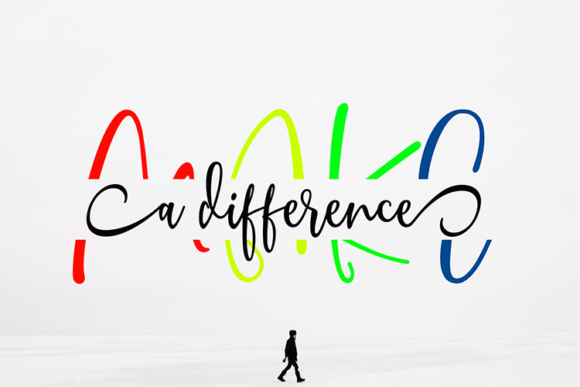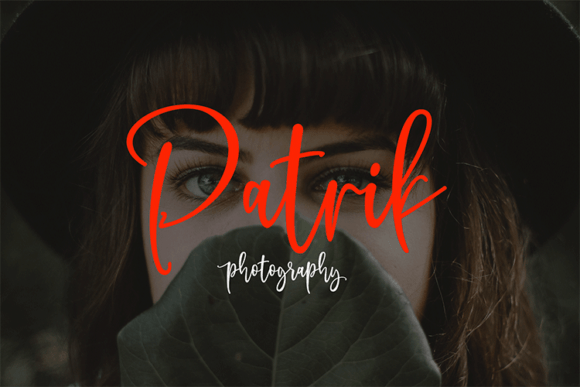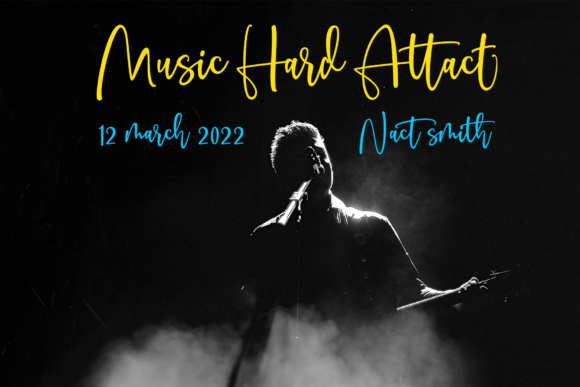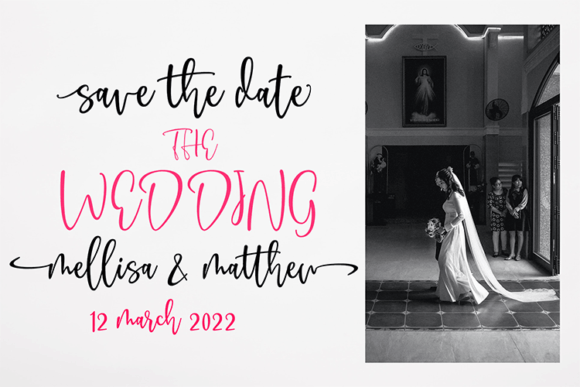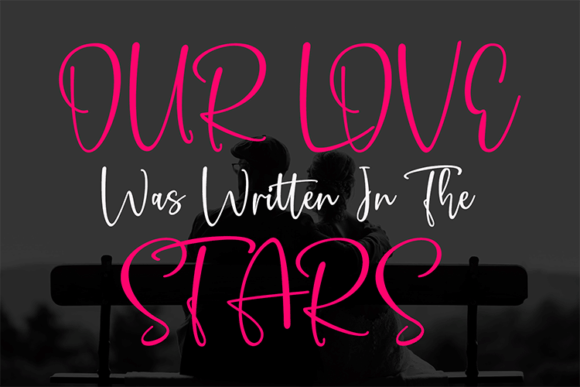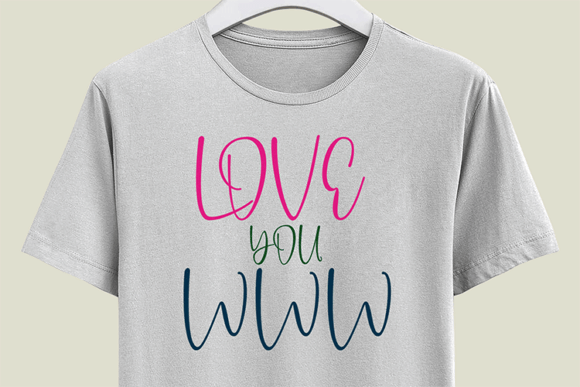
Introducing Camelina Font: Elevate Your Designs with Elegance and Sophistication
In the world of typography, a well-crafted font can make all the difference in elevating your design to the next level. If you’re a designer, crafter, or DIY enthusiast looking for a modern calligraphy font that exudes elegance and sophistication, look no further than Camelina Font. This stunning font is designed to add a touch of luxury to your projects, making it perfect for a wide range of applications.
What is Camelina Font?
Camelina Font is a modern calligraphy font that boasts characters that dance along the baseline, creating a sense of movement and fluidity. Its elegant touch makes it an ideal choice for designs that require a high level of sophistication. Whether you’re creating logos, wedding invitations, letterhead, signage, or promotional materials, Camelina Font is the perfect addition to your typography arsenal.
Key Features of Camelina Font
- Modern Calligraphy Style: Camelina Font features a modern calligraphy style that is both elegant and refined.
- Versatile: Camelina Font can be used for a wide range of applications, including logos, wedding invitations, letterhead, signage, news, t-shirts, heading labels, posters, badges, and more.
- Elegant Touch: The font’s elegant touch adds a level of sophistication to your designs, making them stand out from the crowd.
Use Cases for Camelina Font
Camelina Font is an incredibly versatile font that can be used for various purposes. Here are some use cases to get you started:
- Logos: Create a stunning logo for your business or brand with Camelina Font.
- Wedding Invitations: Add a touch of elegance to your wedding invitations with this beautiful font.
- Letterhead: Elevate your business correspondence with Camelina Font.
- Signage: Create eye-catching signage for your business or event with this modern calligraphy font.
- T-Shirts and Apparel: Design stylish t-shirts and apparel with Camelina Font.
- Posters and Flyers: Create stunning posters and flyers that grab attention with this elegant font.
Why Choose Camelina Font?
With so many fonts available, why choose Camelina Font? Here are a few reasons why designers and crafters love this font:
- Unique Style: Camelina Font offers a unique and distinctive style that sets it apart from other fonts.
- High-Quality: Camelina Font is a high-quality font that is designed to deliver exceptional results.
- Versatility: This font can be used for a wide range of applications, making it a valuable addition to your font library.
In conclusion, Camelina Font is a stunning modern calligraphy font that is perfect for designers, crafters, and DIY enthusiasts looking to add a touch of elegance and sophistication to their designs. With its unique style, ease of use, high-quality, and versatility, this font is an excellent choice for a wide range of applications. Whether you’re creating logos, wedding invitations, or promotional materials, Camelina Font is sure to elevate your designs to the next level.